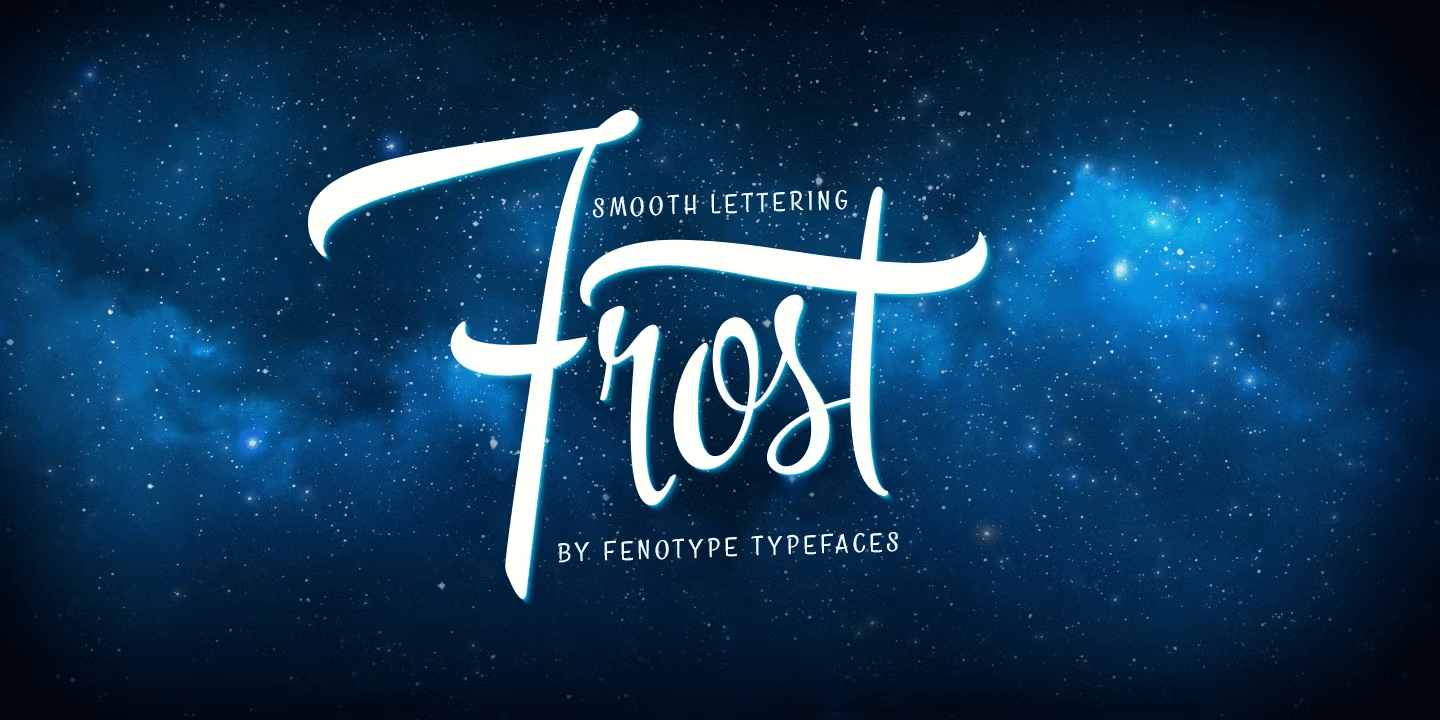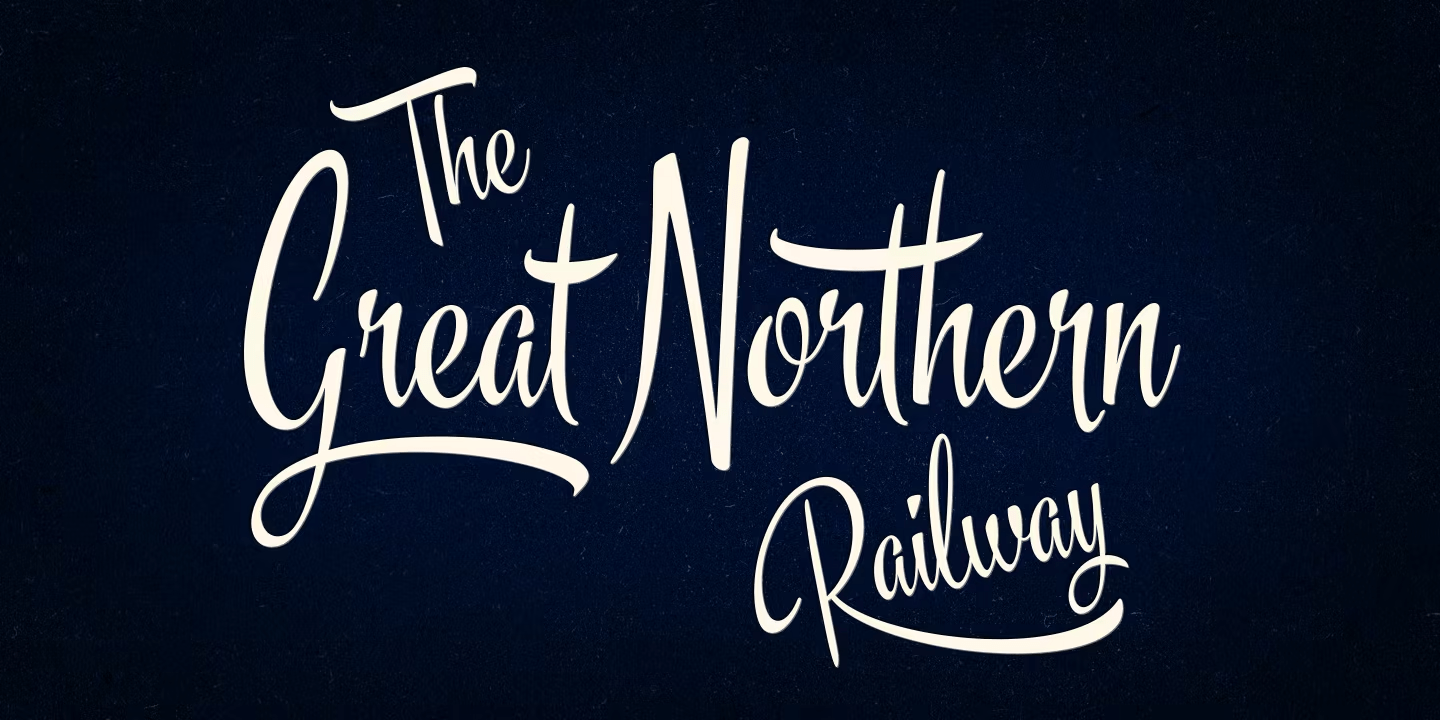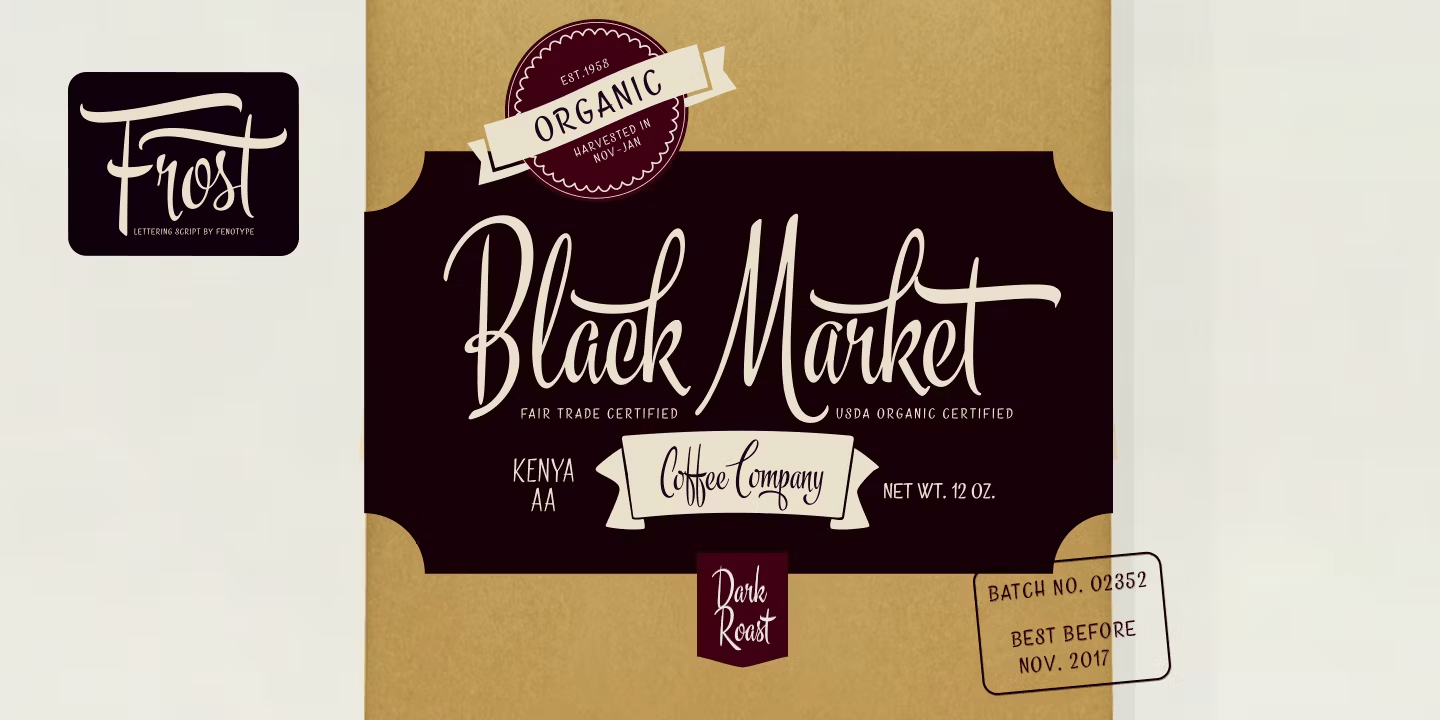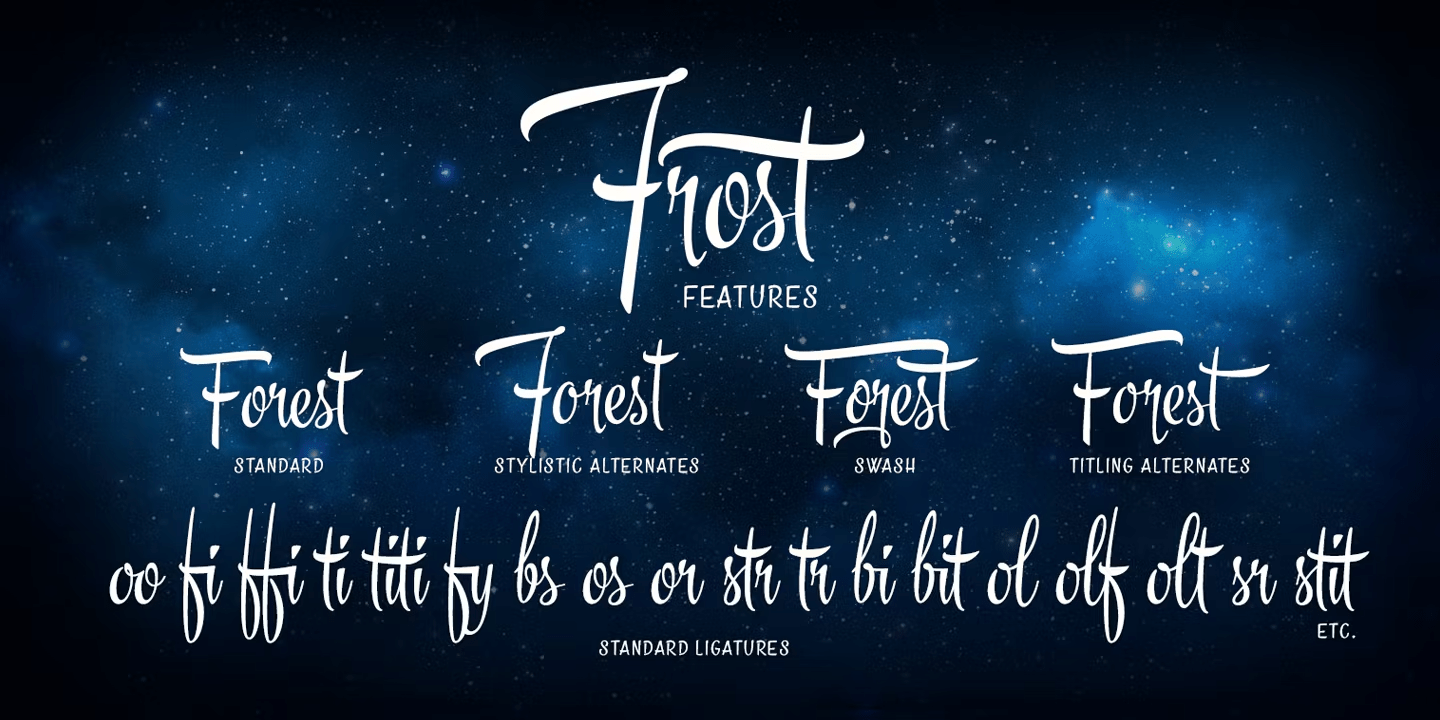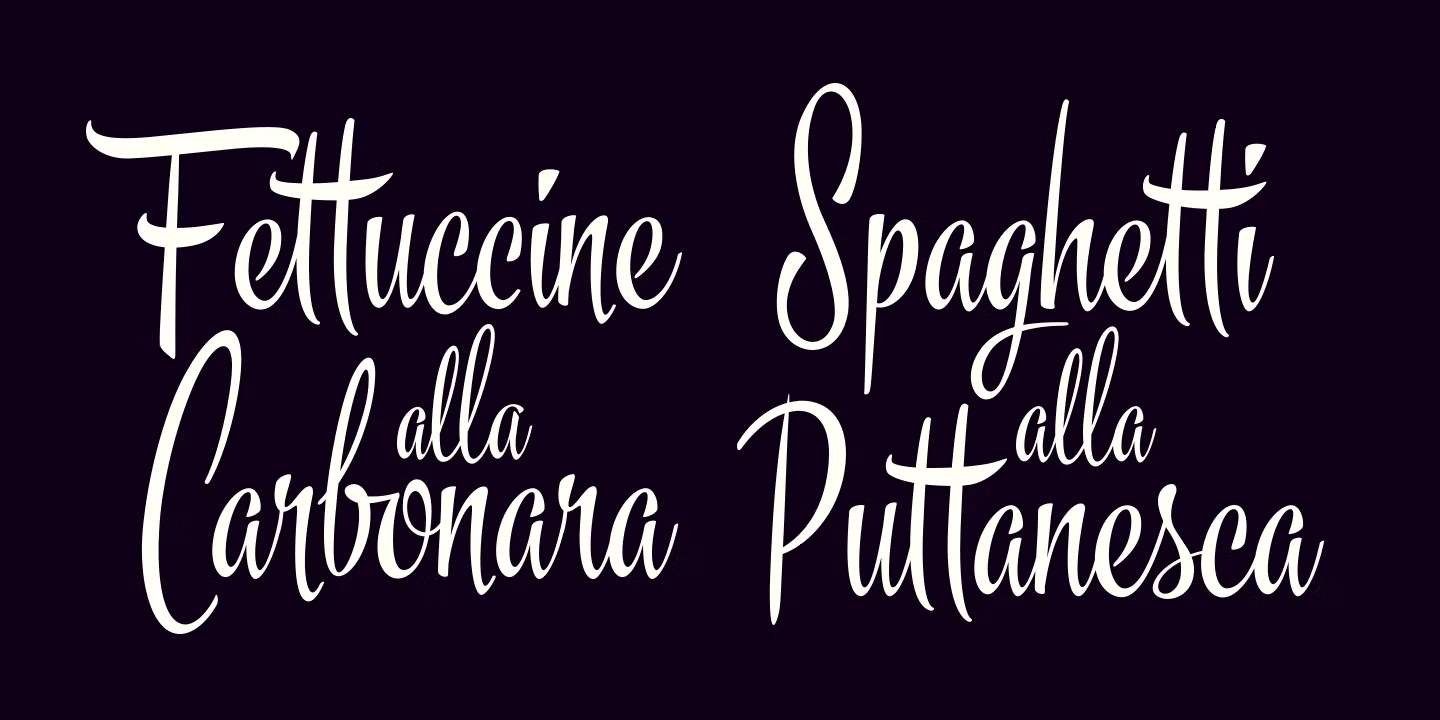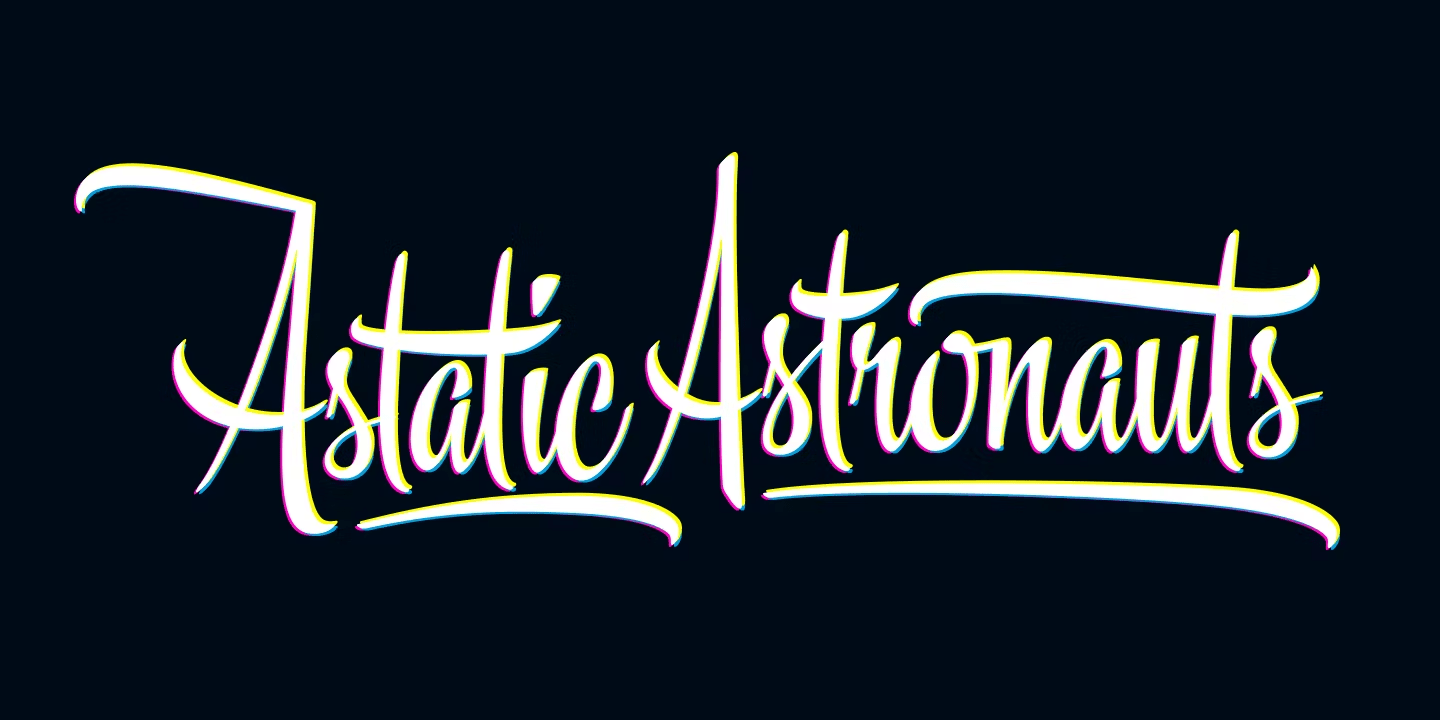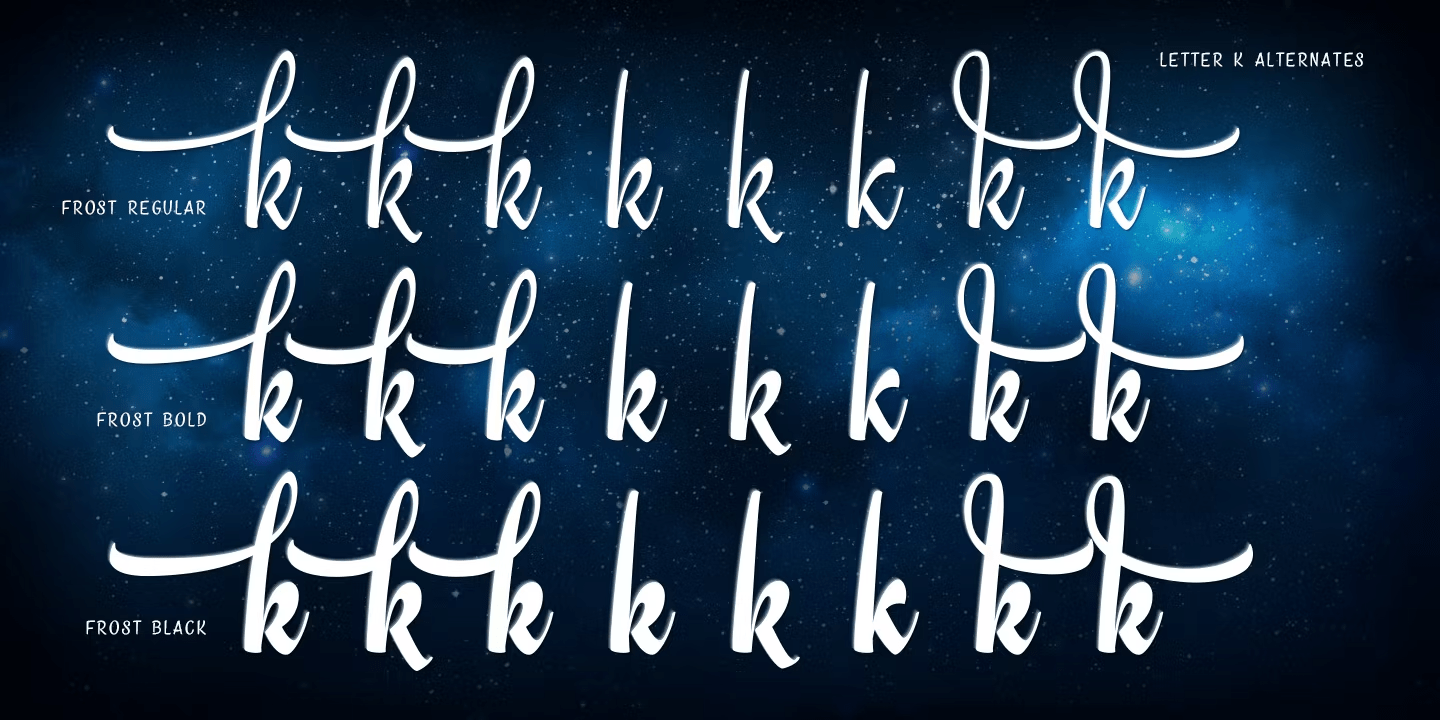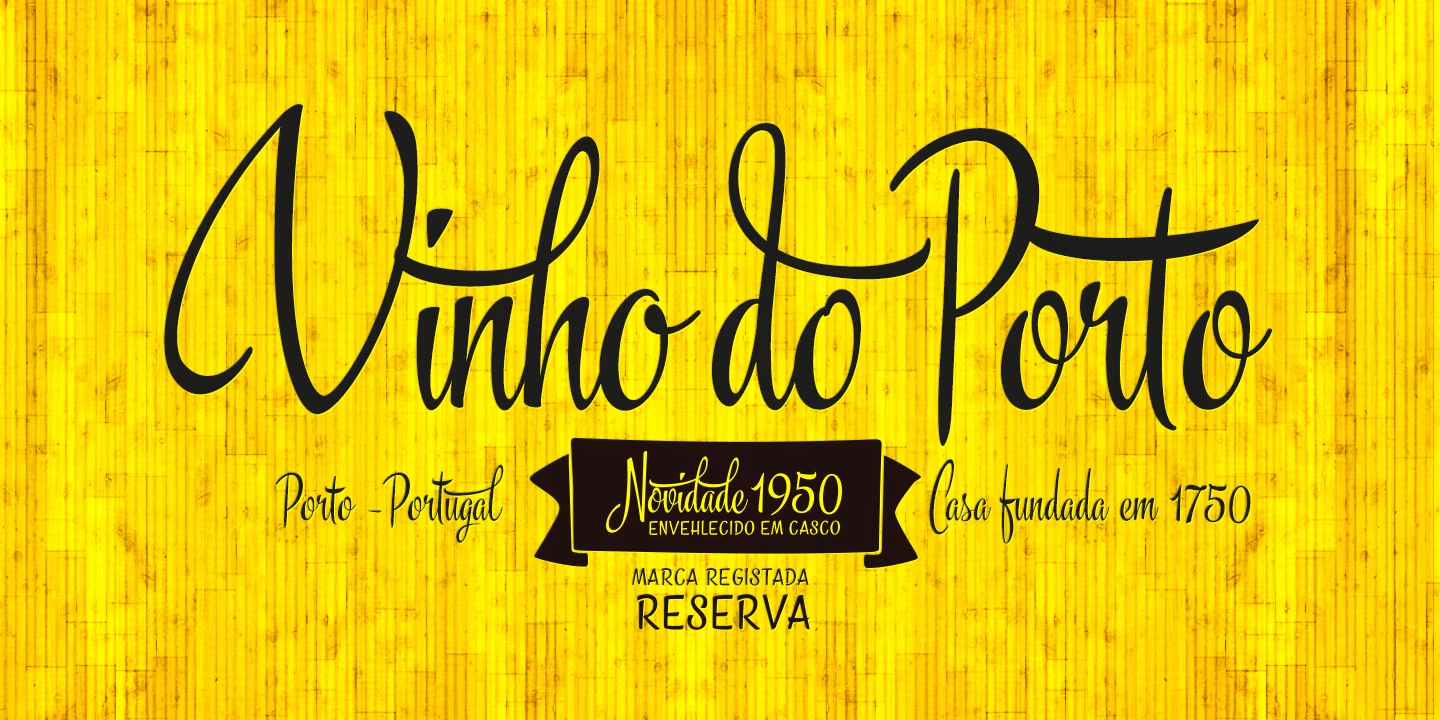
Frost
Frost is a smooth and lively connected script family of three weights, ornament and banner sets and separate caps and small caps designed to support the script. Frost is influenced by the hand lettering and sign painting of the 1950s and 1960s with more polished appearance to better suit contemporary design trends.
Frost is equipped with loads of automatic ligatures to make the text better flowing and has minimum three alternatives to every basic letter: To activate the alternates click on Swash, Stylistic or Titling Alternates in any OpenType Savvy program or manually choose from even more alternate characters from the Glyph Palette.
Frost is an effective and easy to use font family for creating ambitious headlines, logos & posters with a custom-made feeling. For the absolutely best price purchase the complete family!